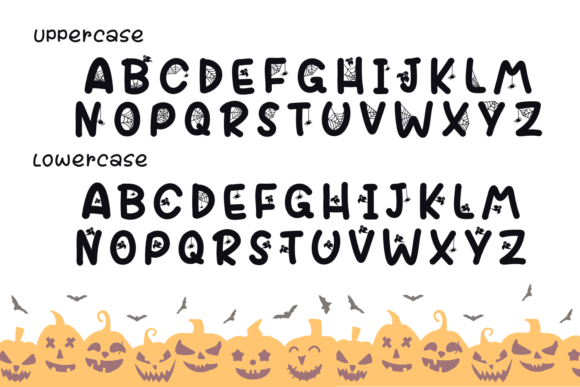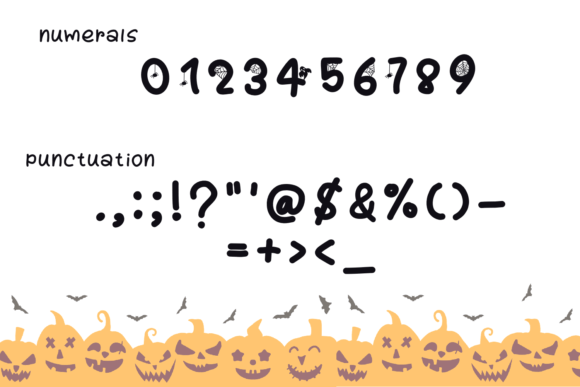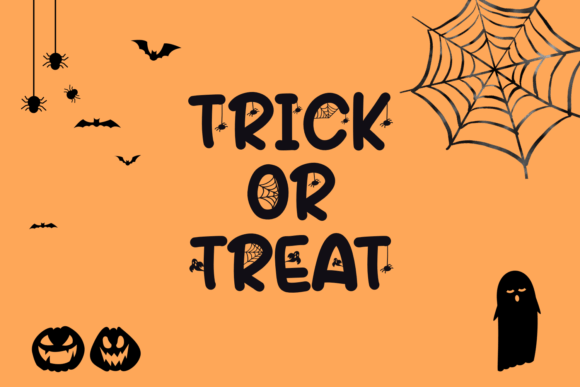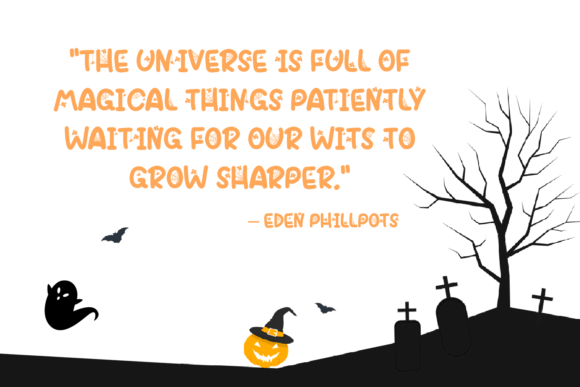
Unleash the Spook: Elevate Your Halloween Designs with the Halloween Font
Halloween is just around the corner, and with it comes the thrill of creating spook-tacular designs that capture the essence of this eerie celebration. Whether you’re a designer, crafter, or simply a Halloween enthusiast, having the right typography can make all the difference in making your projects stand out. That’s where the Halloween Font comes in – a simple yet incredibly authentic decorative font that’s sure to add a chilling touch to your October-themed creations.
The Perfect Blend of Scary and Spooky
The Halloween Font is designed to evoke the perfect blend of scary and spooky, making it an ideal choice for a wide range of Halloween-themed designs. From invitations and party decorations to social media graphics and craft projects, this font is sure to add a level of authenticity that’s hard to resist. Its lettered design is both elegant and eerie, making it a versatile choice for various design applications.
Key Features of the Halloween Font
- Authentic Decorative Font: The Halloween Font boasts an incredibly authentic decorative style that’s reminiscent of traditional Halloween lettering.
- Scary yet Spooky: This font strikes the perfect balance between scary and spooky, making it suitable for a wide range of Halloween-themed designs.
- Easy to Use: The Halloween Font is a simple lettered font that’s easy to use and integrate into your designs.
- Versatile: Whether you’re designing invitations, party decorations, or social media graphics, this font is sure to add a chilling touch to your projects.
Design Ideas to Make Your Halloween Projects Stand Out
Now that you’ve got the Halloween Font, it’s time to get creative! Here are some design ideas to help you make the most of this spook-tacular font:
- Halloween Invitations: Create eye-catching invitations for Halloween parties, trick-or-treat events, or haunted house attractions.
- Party Decorations: Use the Halloween Font to create spooky banners, garlands, and signs that’ll add a chilling touch to your Halloween party decorations.
- Social Media Graphics: Create engaging social media graphics, such as Halloween-themed Facebook posts, Instagram stories, or Twitter headers.
- Craft Projects: Add a personal touch to your Halloween craft projects, such as pumpkin carvings, Halloween cards, or spooky centerpieces.
Tips for Using the Halloween Font Effectively
To get the most out of the Halloween Font, here are some tips to keep in mind:
- Pair it with Other Fonts: Experiment with pairing the Halloween Font with other fonts to create a unique and eye-catching design.
- Use it in Moderation: While the Halloween Font is sure to add a chilling touch to your designs, use it in moderation to avoid overwhelming your project.
- Play with Colors: Experiment with different colors to create a spooky atmosphere that complements the Halloween Font.
The Halloween Font is a simple yet incredibly authentic decorative font that’s sure to elevate your Halloween designs. With its perfect blend of scary and spooky, this font is an ideal choice for designers, crafters, and Halloween enthusiasts alike. So why wait? Unleash the spook and add the Halloween Font to your October-themed designs today!
Whether you’re creating invitations, party decorations, social media graphics, or craft projects, the Halloween Font is sure to make your designs stand out. So go ahead, get creative, and make this Halloween one to remember!